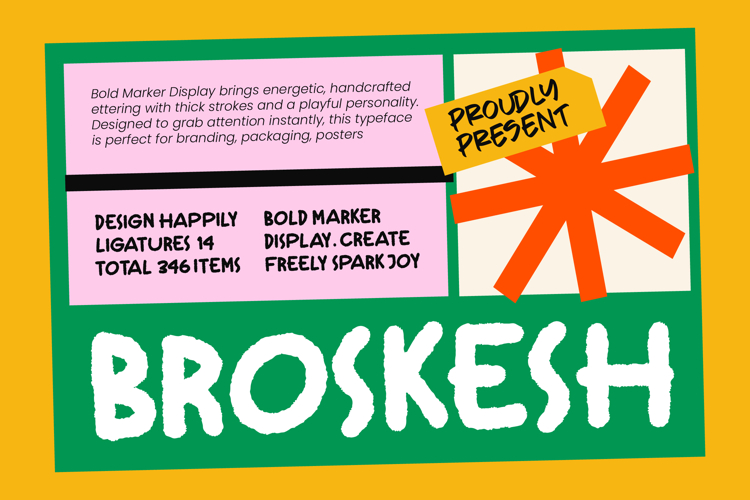
Broskesh - Bold Marker Display
Unleash unbridled energy with a typeface that captures the raw essence of handcrafted creativity and bold expression. The Broskesh - Bold Marker Display is a powerhouse of design, featuring thick strokes and a playful personality that demands instant attention. Its textured edges mimic the authentic feel of a felt-tip pen, providing a human touch to digital layouts. This font is specifically engineered for designers who want to break away from sterile typography and embrace a more vibrant aesthetic.
Engineered for maximum impact, Broskesh - Bold Marker Display combines organic textures with professional-grade functionality. Featuring a total of 346 items including 14 unique ligatures, it allows for a custom, hand-lettered look without the manual effort. With its extensive multilingual support, Broskesh - Bold Marker Display adapts seamlessly across global markets, making it incredibly versatile for international projects. This ensures your message remains consistent and powerful regardless of the linguistic landscape.